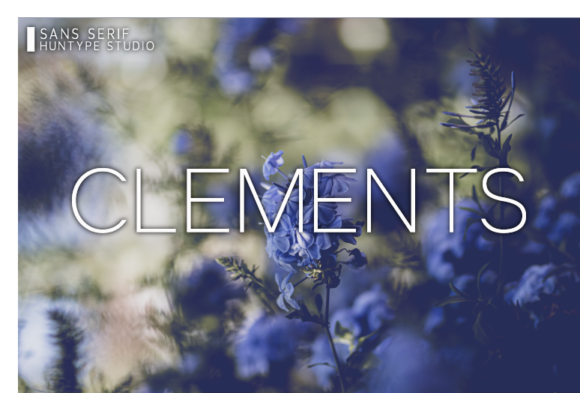
Introduction to Clements Font
Clements is modern sans serif precisely designed for geometric perfection.
Clements fits perfectly to any kind of modern graphic design project, it can be strikingly beautiful to look at as a logotype or pleasure to read in a long text It will definitely add a modern look and sense of professionalism to any piece of typography.